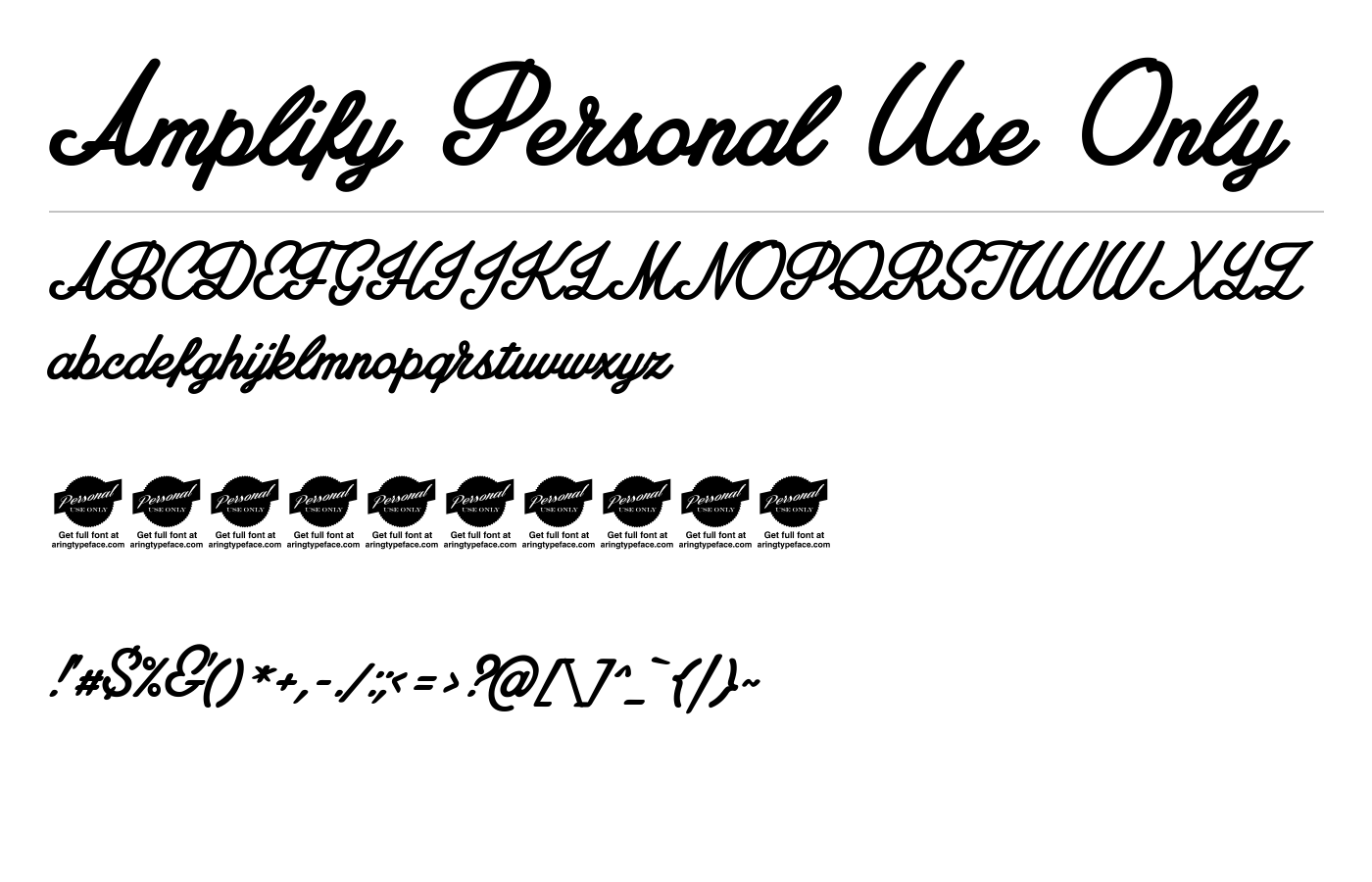
Amplify Personal Use Only is an elegant script font featuring smooth, connected strokes that convey a classic, handwritten feel. With its medium weight and slightly condensed, flowing letterforms, it works beautifully for stylish invitations, logos, and branding that seek a graceful yet approachable personality. This font is ideal for projects that want to combine sophistication with warmth and charm.
Amplify Personal Use Only Font
About Amplify Personal Use Only Font